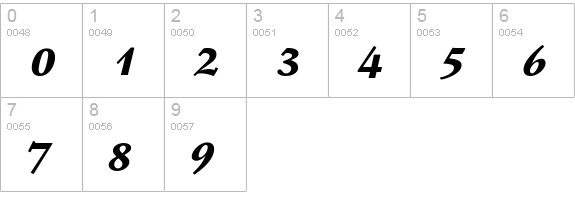
Deutch Black SSi Black Italic is a maximum-weight, dramatic, italic variant in the Deutch typeface family \xE2\x80\x94 well suited to maximum-impact headlines, posters, and packaging.
The Deutch Black SSi Black Italic font exudes a sense of bold sophistication with its sleek and stylish design. Its striking black italic style commands attention and adds a touch of elegance to any project. The sharp angles and clean lines of this font make it perfect for conveying a sense of modernity and professionalism. Best of all, this exquisite font is available for free download at FontsMarket.com. Whether you're creating a logo, designing a poster, or crafting a unique brand identity, Deutch Black SSi Black Italic font is sure to make a lasting impression. Add a touch of flair and sophistication to your designs with this stunning typeface, now just a click away for your creative endeavors.